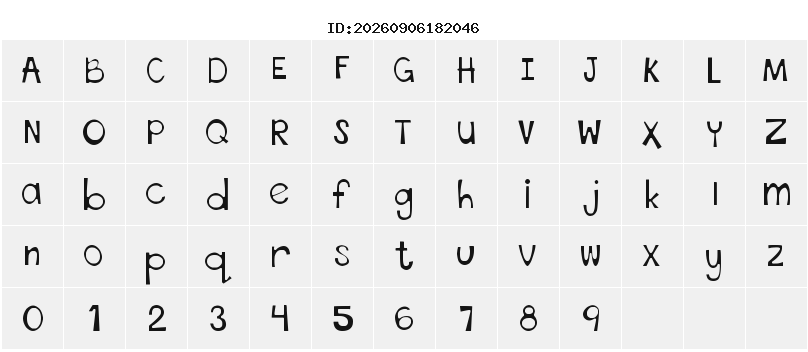
• Font Name: THIS FONT IS STRESSED - EURO
• Font Style: Gras
• Full Font Name: THIS FONT IS STRESSED - EURO Bold
About THIS FONT IS STRESSED - EURO.ttf
THIS FONT IS STRESSED - EURO.ttf is a modern, elegant sans-serif font designed for ultimate readability and visual harmony. Perfect for branding, headlines, web design, and print materials.